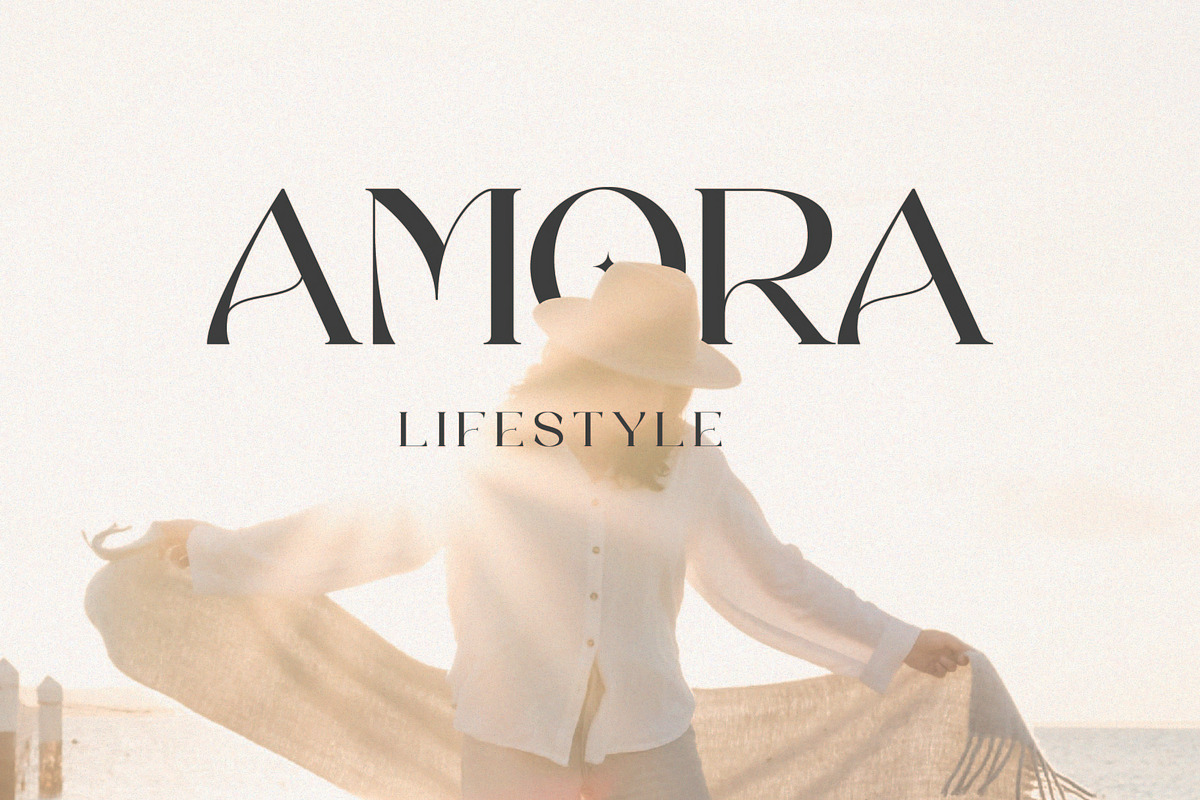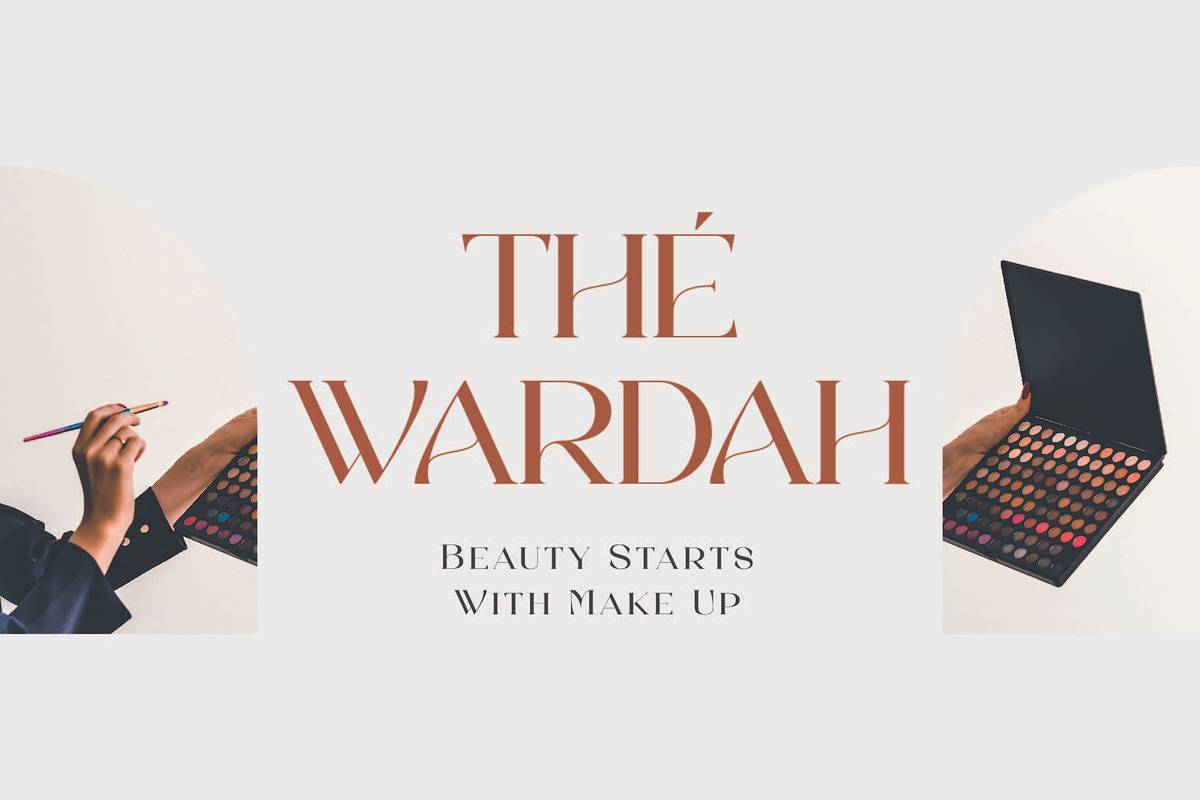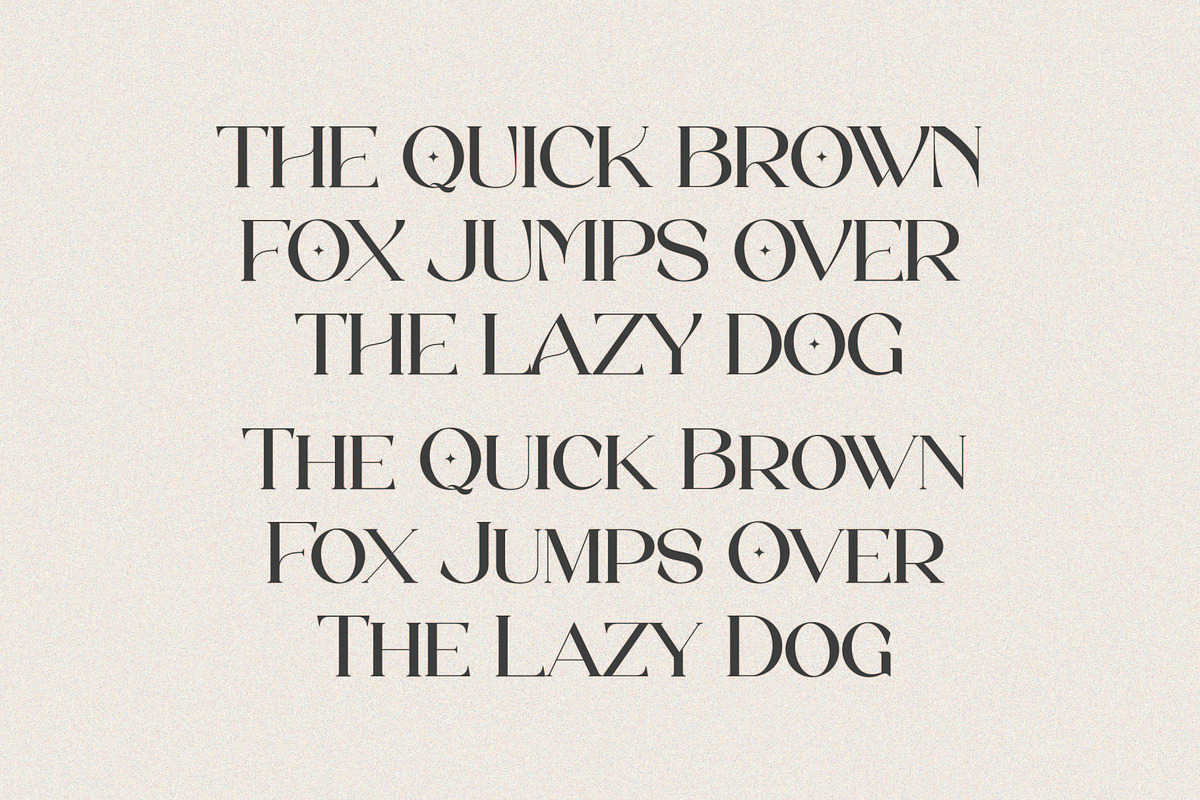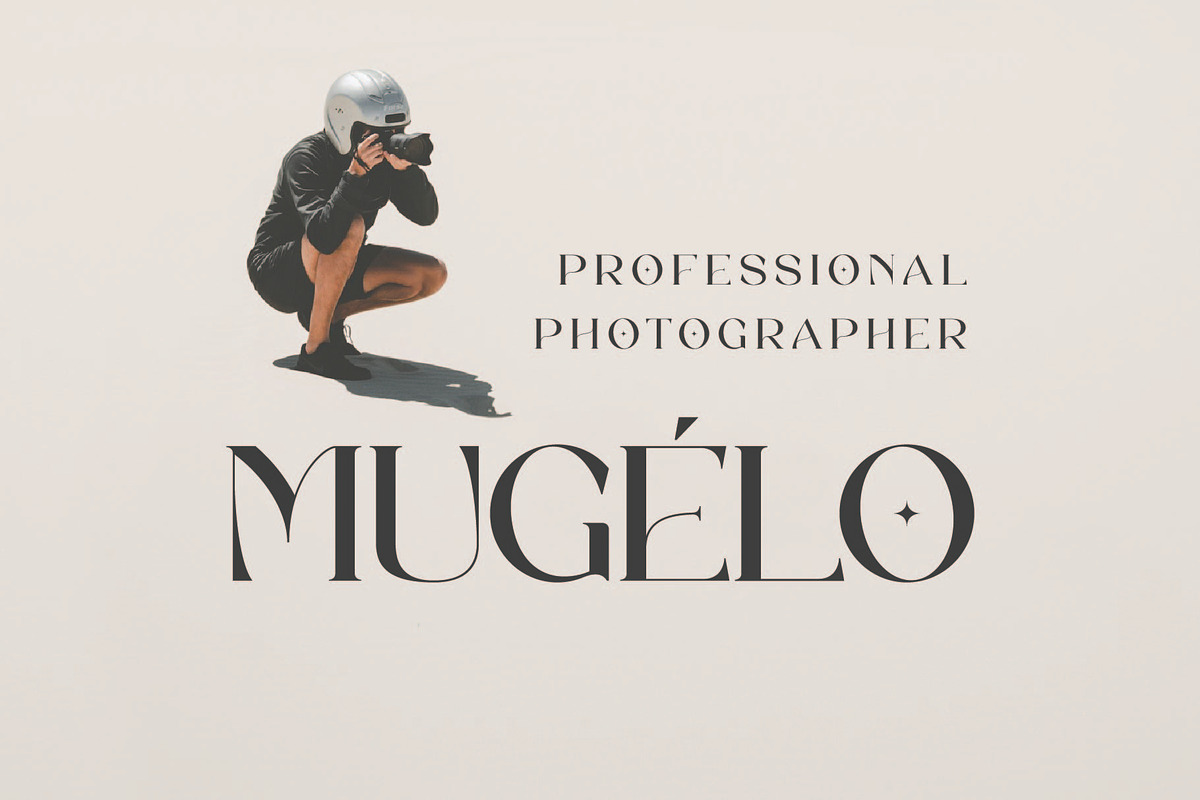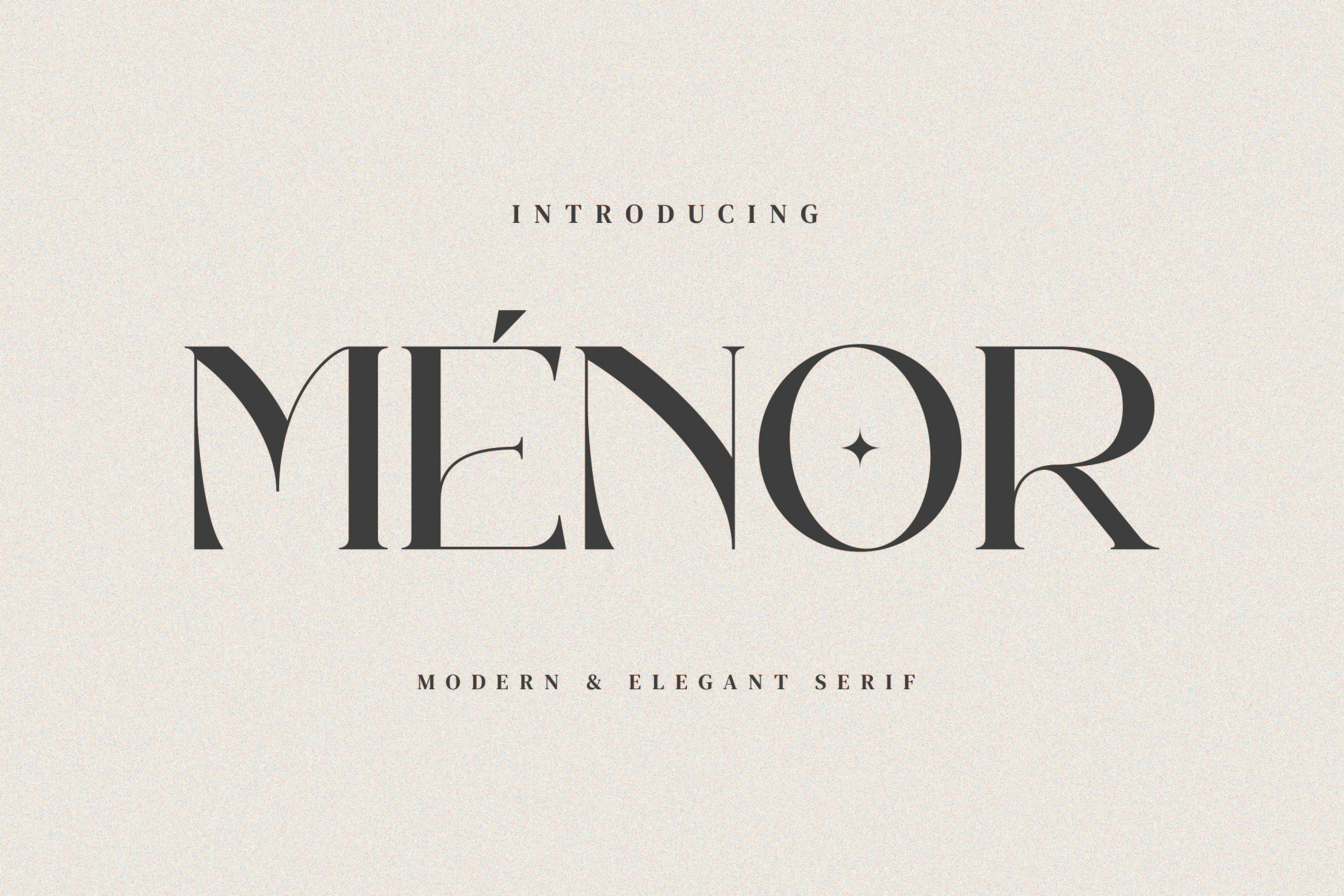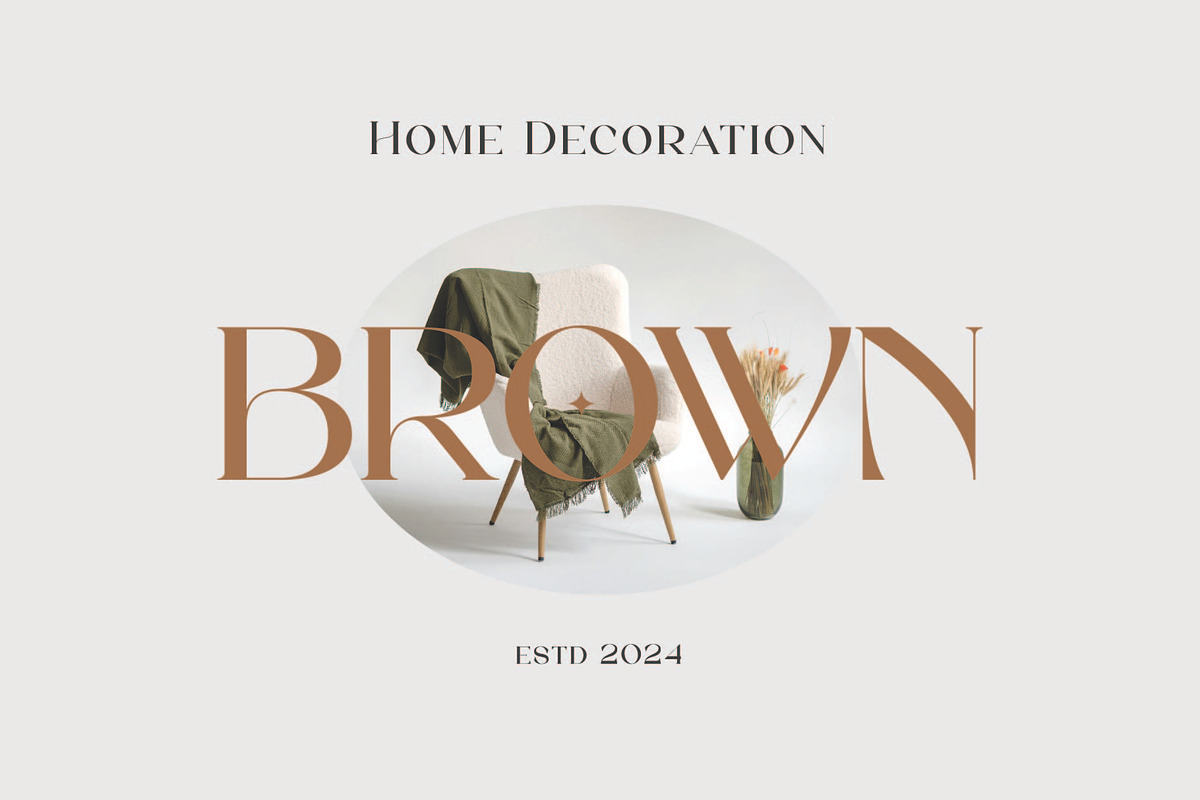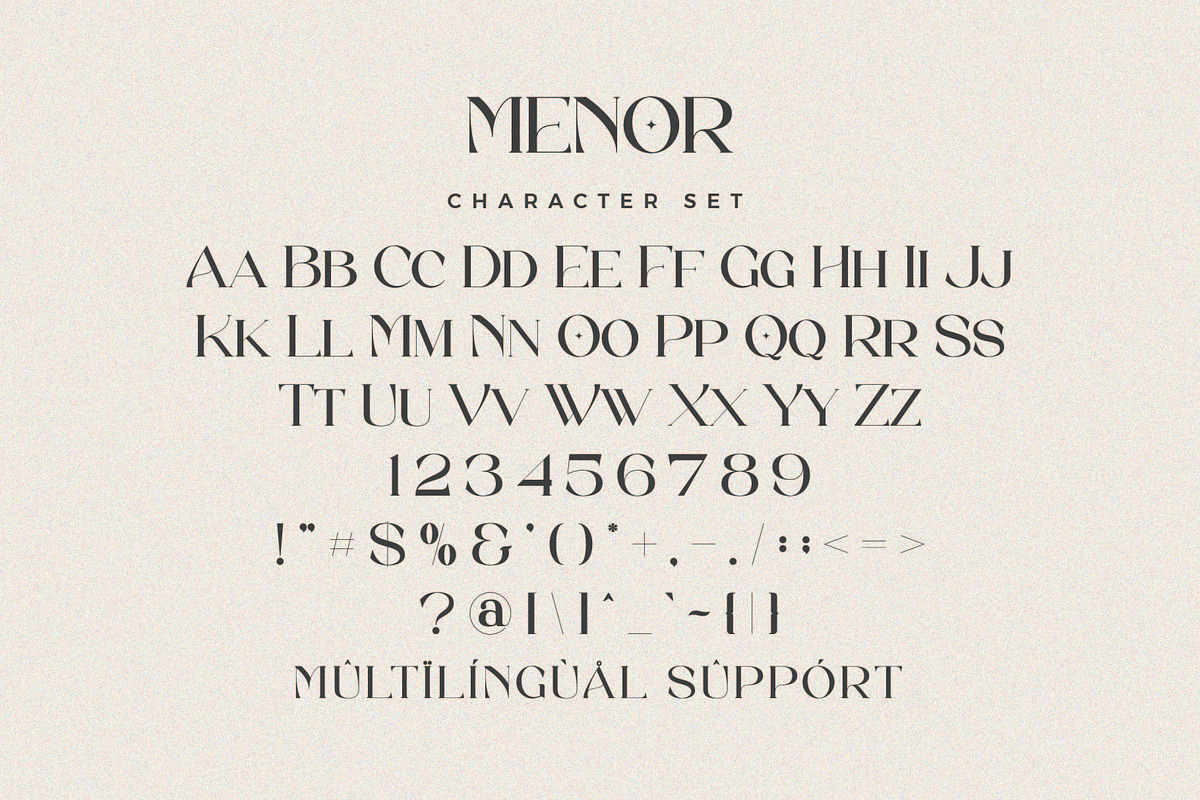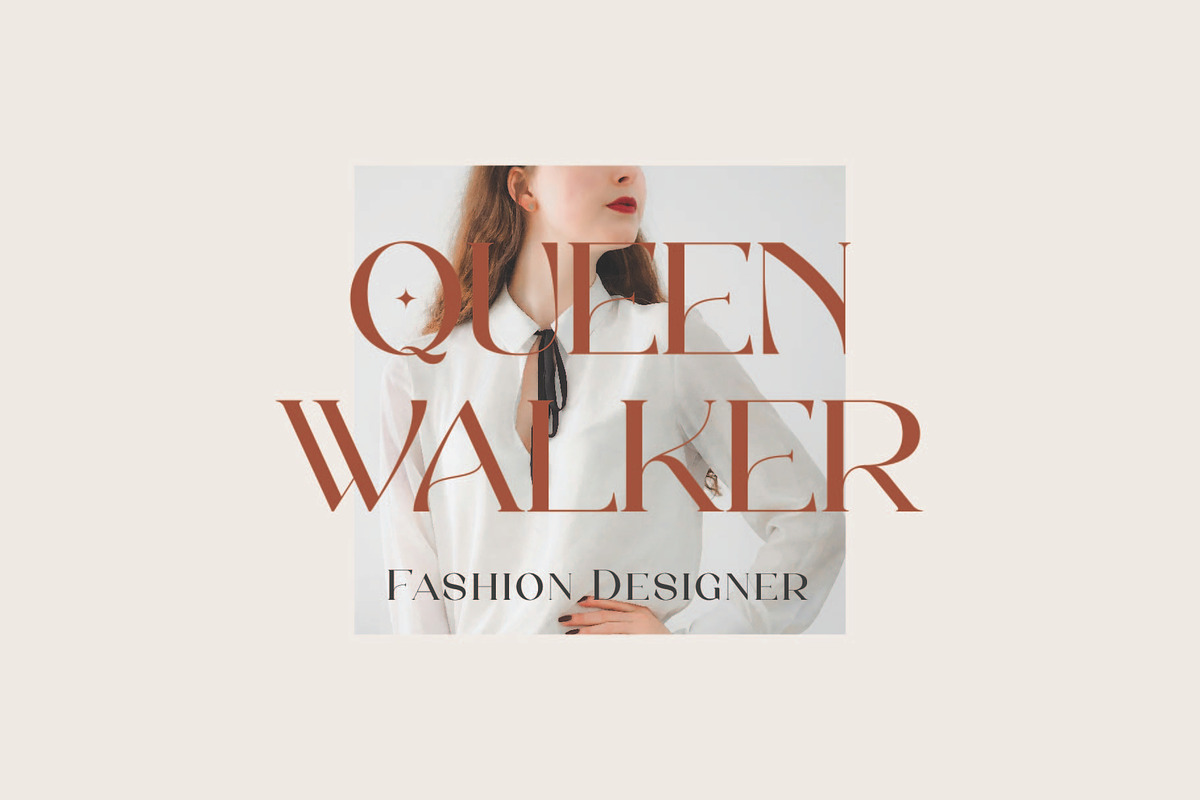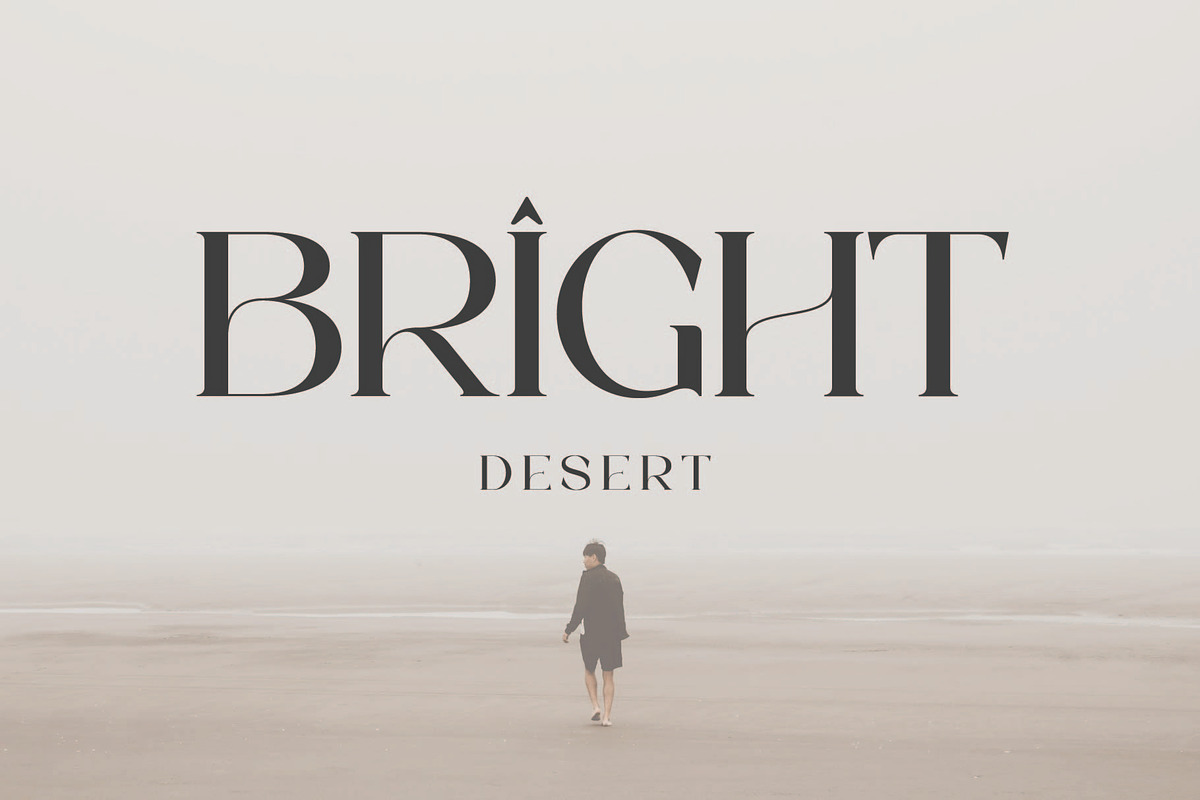
Menor - Stylish Serif Font
Menor Stylish Ligature Typeface, inspired by the famous minimalist logo perfect for the purposes of designing templates, brochures, videos, advertising branding, logos and more.